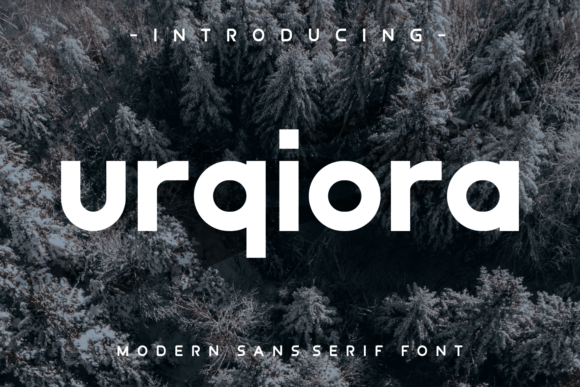
Step into the realm of professional communication with Urqiora Font, the ultimate choice for all your business video endeavors. Its sharp, clean lines convey a sense of modernity and sophistication, making it the ideal font to elevate your presentations and captivate your audience.
Crafted with the utmost care and precision, Urqiora Font exudes an air of confidence and authority. Its sans-serif design ensures flawless readability, allowing your message to shine through with clarity and impact. Whether you're creating dynamic corporate videos, engaging marketing content, or compelling tutorials, Urqiora Font will elevate your visual storytelling to new heights.
But Urqiora Font's versatility extends far beyond business videos. Its timeless appeal makes it a perfect fit for a wide range of creative pursuits. Unleash your imagination as you craft stunning digital designs, greeting cards, or presentation materials. Urqiora Font will seamlessly adapt to your vision, adding a touch of elegance and professionalism to every project.
Immerse yourself in the world of Urqiora Font and discover a world of possibilities. Let its modern aesthetic enhance your communication, leaving a lasting impression on your audience. Embrace the power of words and design, and watch your business soar to new heights with Urqiora Font.